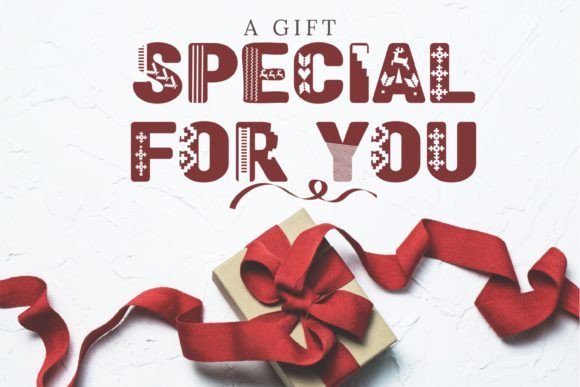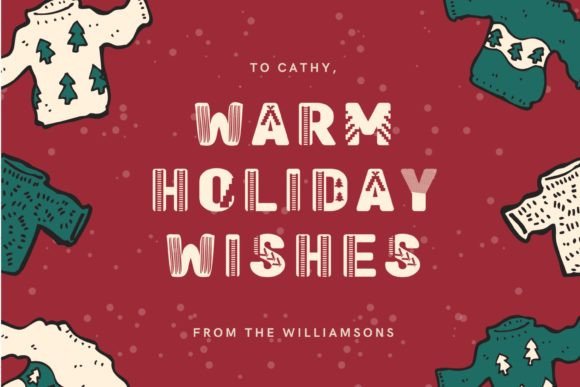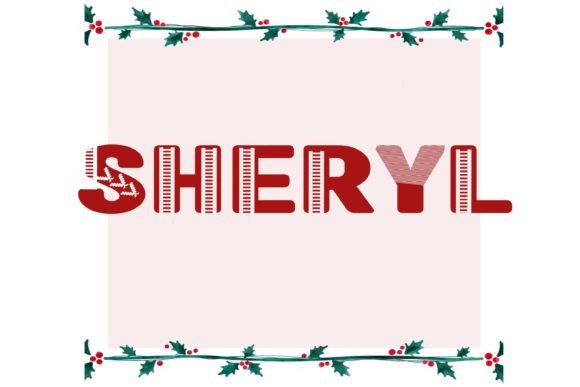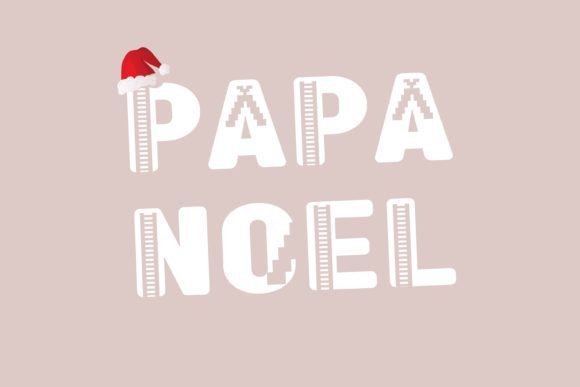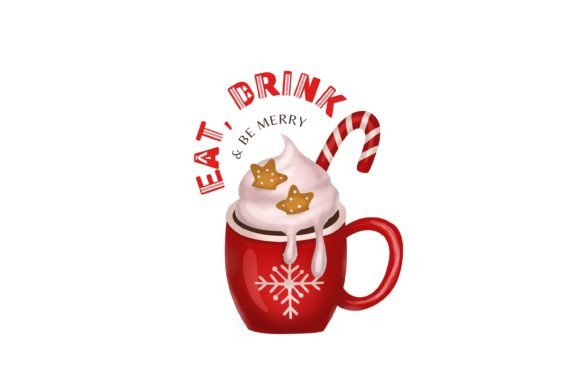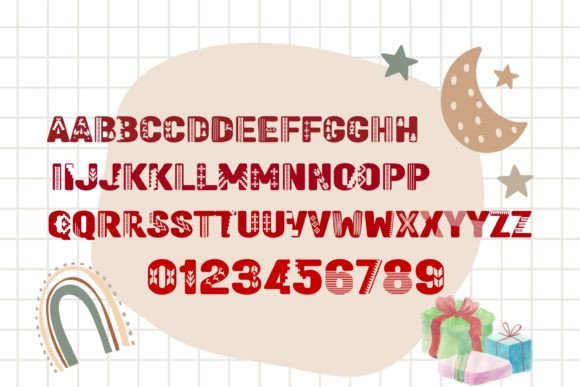
Introducing Gift Boxes Font: The Perfect Addition to Your Holiday Designs
Are you looking for a font that captures the essence of the holiday season? Look no further than Gift Boxes Font, a lovely decorative font that’s sure to bring a touch of Christmas cheer to your designs. In this article, we’ll take a closer look at this adorable font and explore its features, uses, and benefits for designers and crafters.
A Festive and Whimsical Typeface
Gift Boxes Font is a sweet and festive typeface designed to add a little easy and whimsical Christmas cheer to your life. Its playful and adorable design makes it perfect for holiday-themed projects, from Christmas cards and invitations to gift tags and decorations. The font’s unique and quirky style is sure to delight both kids and adults, making it an excellent choice for a wide range of applications.
Key Features of Gift Boxes Font
So, what makes Gift Boxes Font so special? Here are some of its key features:
- Unique and playful design: Gift Boxes Font features a one-of-a-kind design that’s both fun and festive.
- Whimsical and adorable: The font’s sweet and charming style is sure to bring a smile to anyone’s face.
- Perfect for holiday projects: Gift Boxes Font is specifically designed for holiday-themed projects, making it an excellent choice for Christmas cards, invitations, and decorations.
- Easily readable: Despite its playful design, Gift Boxes Font is easy to read, making it suitable for both digital and print applications.
Uses for Gift Boxes Font
Gift Boxes Font is an incredibly versatile typeface that can be used in a wide range of applications, including:
- Christmas cards and invitations: Add a touch of festive cheer to your holiday cards and invitations with Gift Boxes Font.
- Gift tags and decorations: Use Gift Boxes Font to create adorable gift tags, gift boxes, and other holiday decorations.
- Digital graphics and social media: Add some holiday cheer to your digital graphics and social media posts with Gift Boxes Font.
- Crafting and DIY projects: Gift Boxes Font is perfect for crafters and DIY enthusiasts who want to add a personal touch to their holiday projects.
So, what are the benefits of using Gift Boxes Font for designers and crafters? Here are a few:
- Save time and effort: With Gift Boxes Font, you can quickly and easily add a festive touch to your designs without spending hours creating custom typography.
- Stand out from the crowd: Gift Boxes Font is a unique and eye-catching typeface that’s sure to help your designs stand out from the crowd.
In conclusion, Gift Boxes Font is a lovely decorative font that’s perfect for adding a touch of Christmas cheer to your designs. Its unique and playful design, whimsical and adorable style, and ease of use make it an excellent choice for designers and crafters. Whether you’re creating holiday cards, gift tags, or digital graphics, Gift Boxes Font is sure to bring a smile to anyone’s face. So why not give it a try and add some festive fun to your designs?